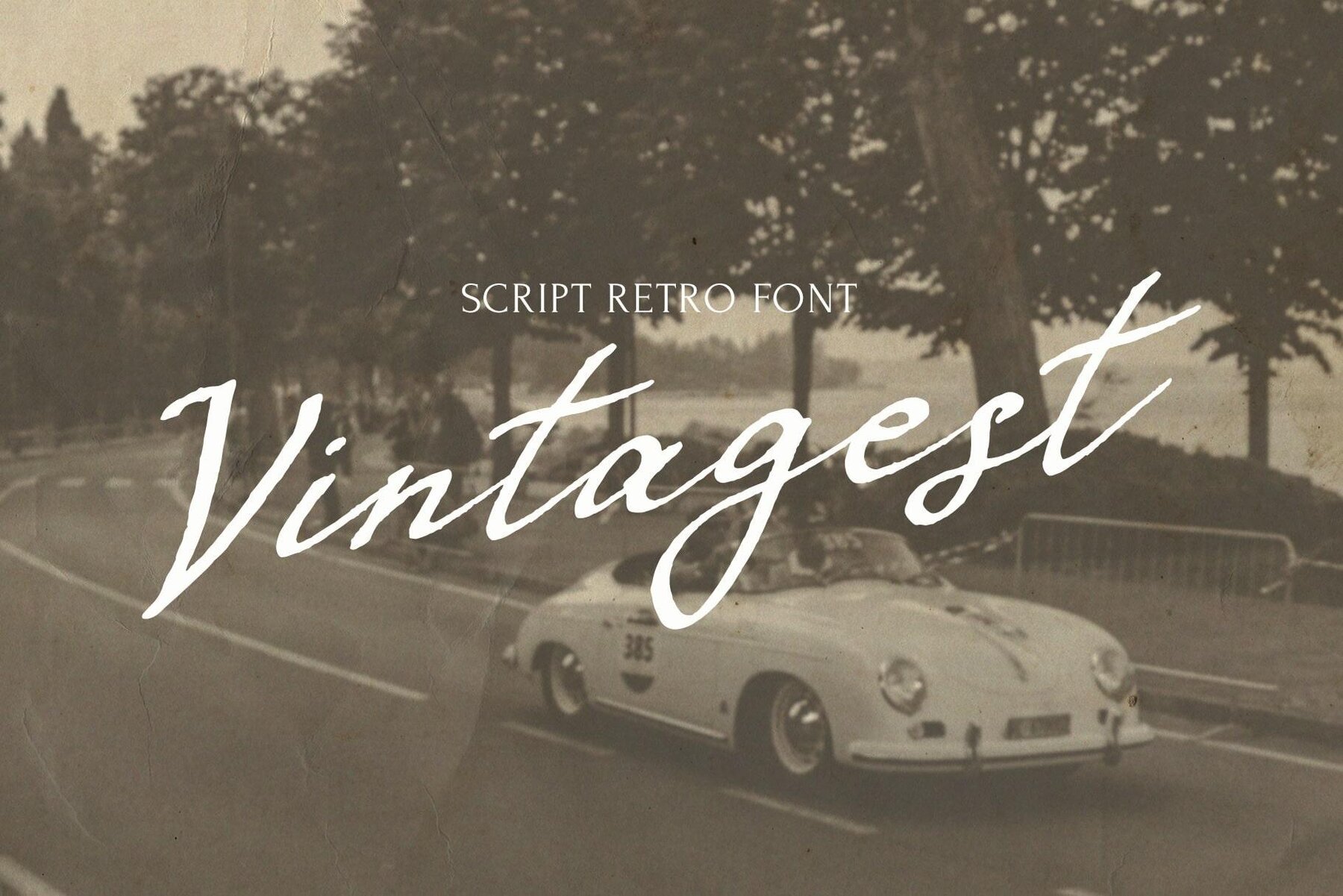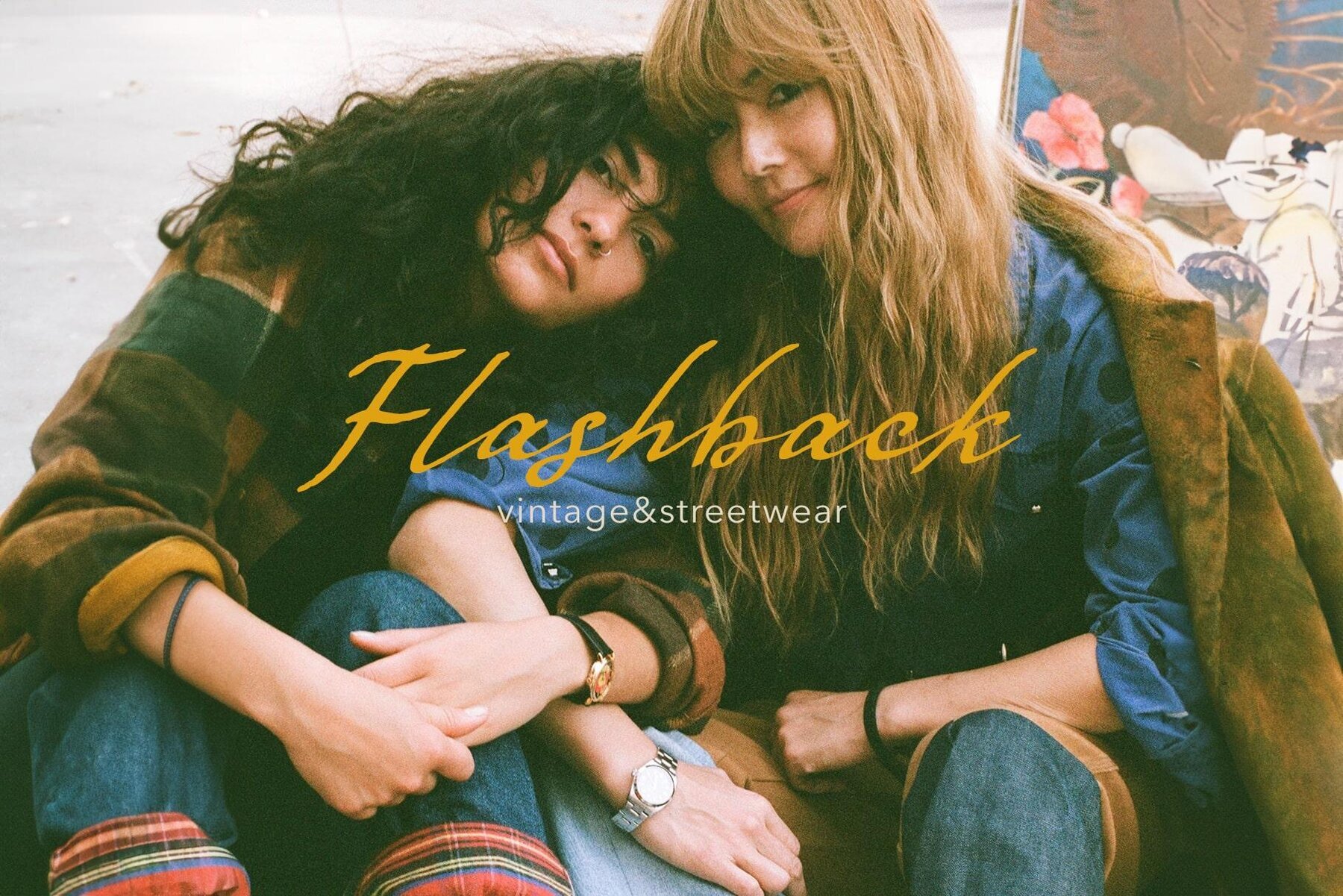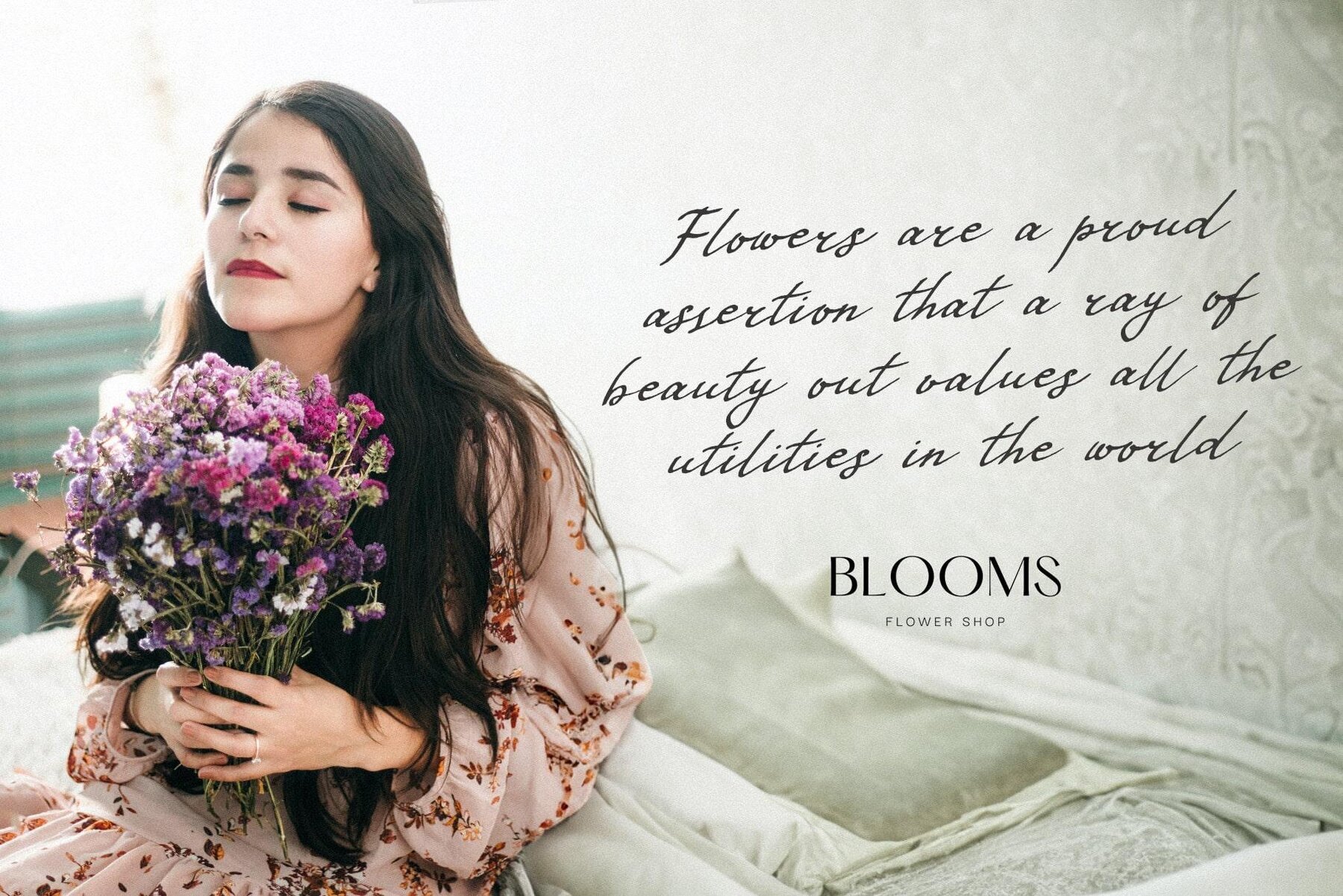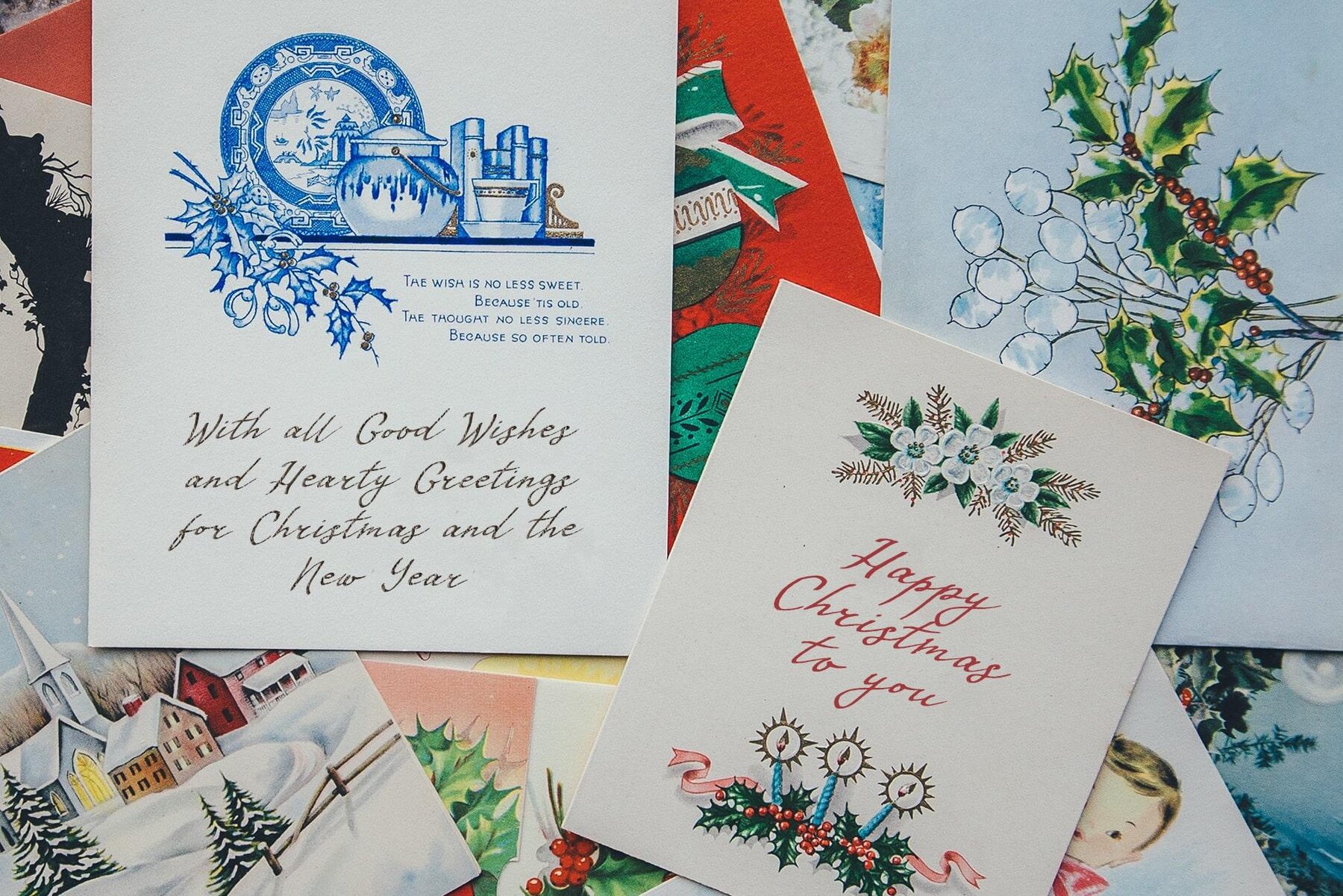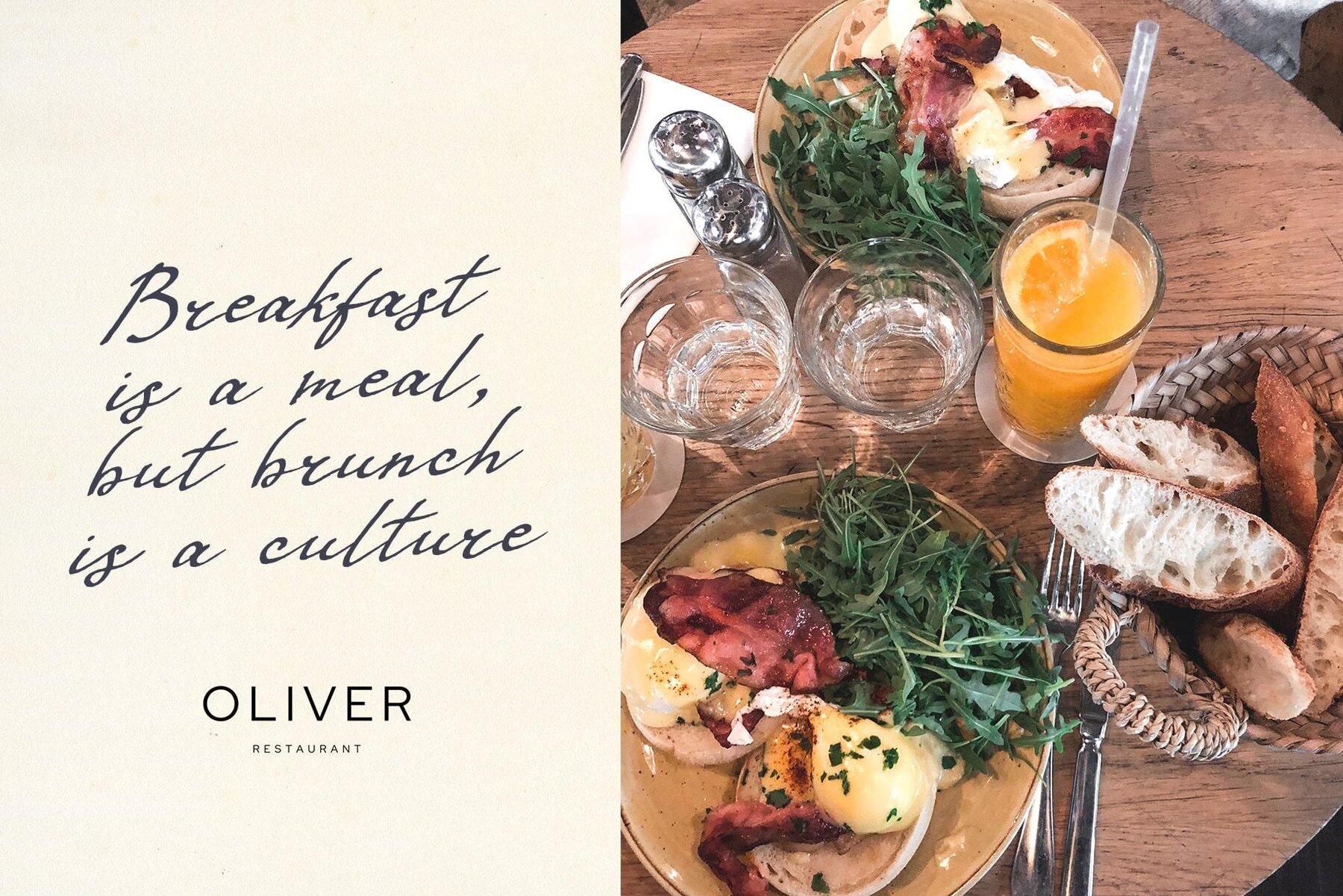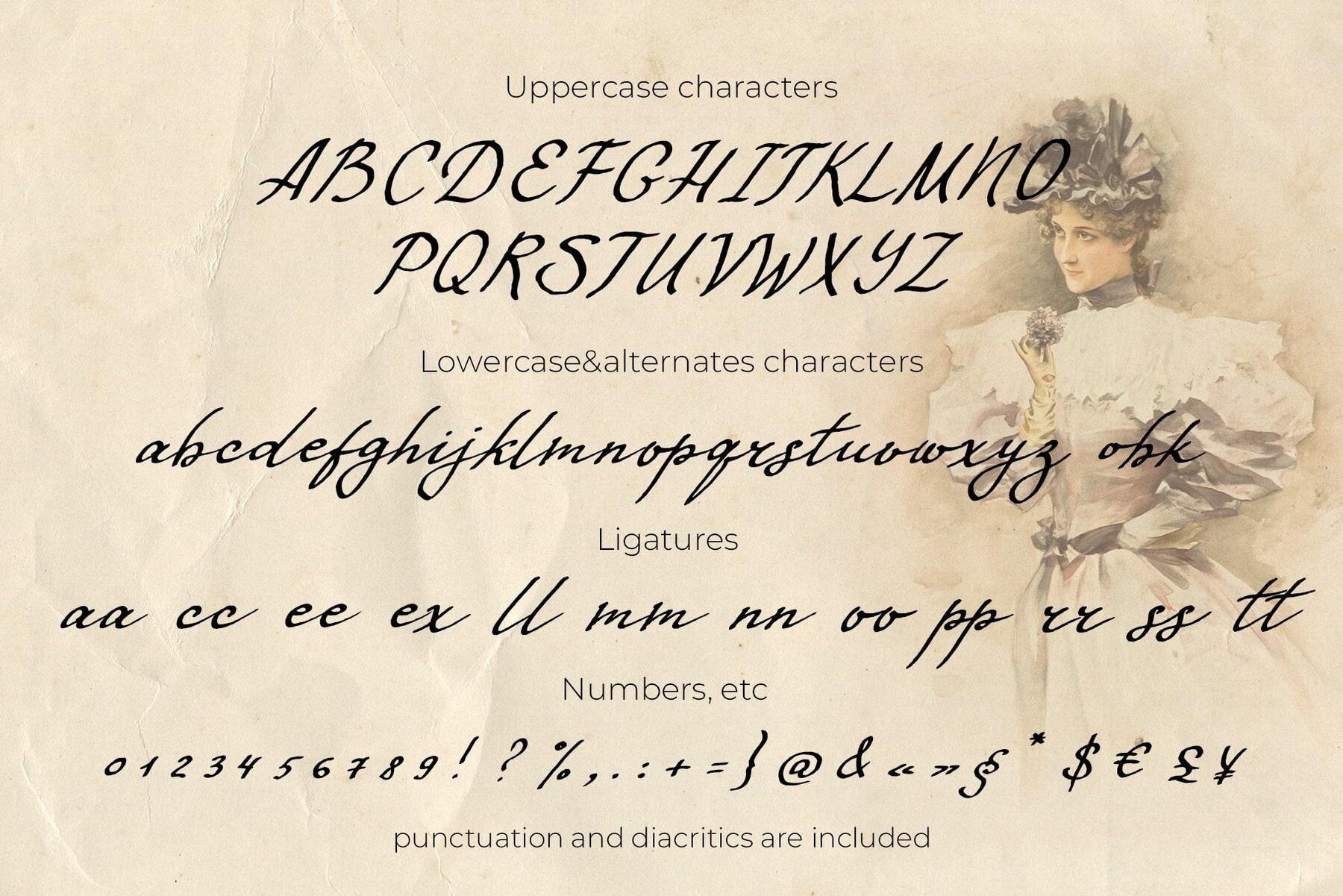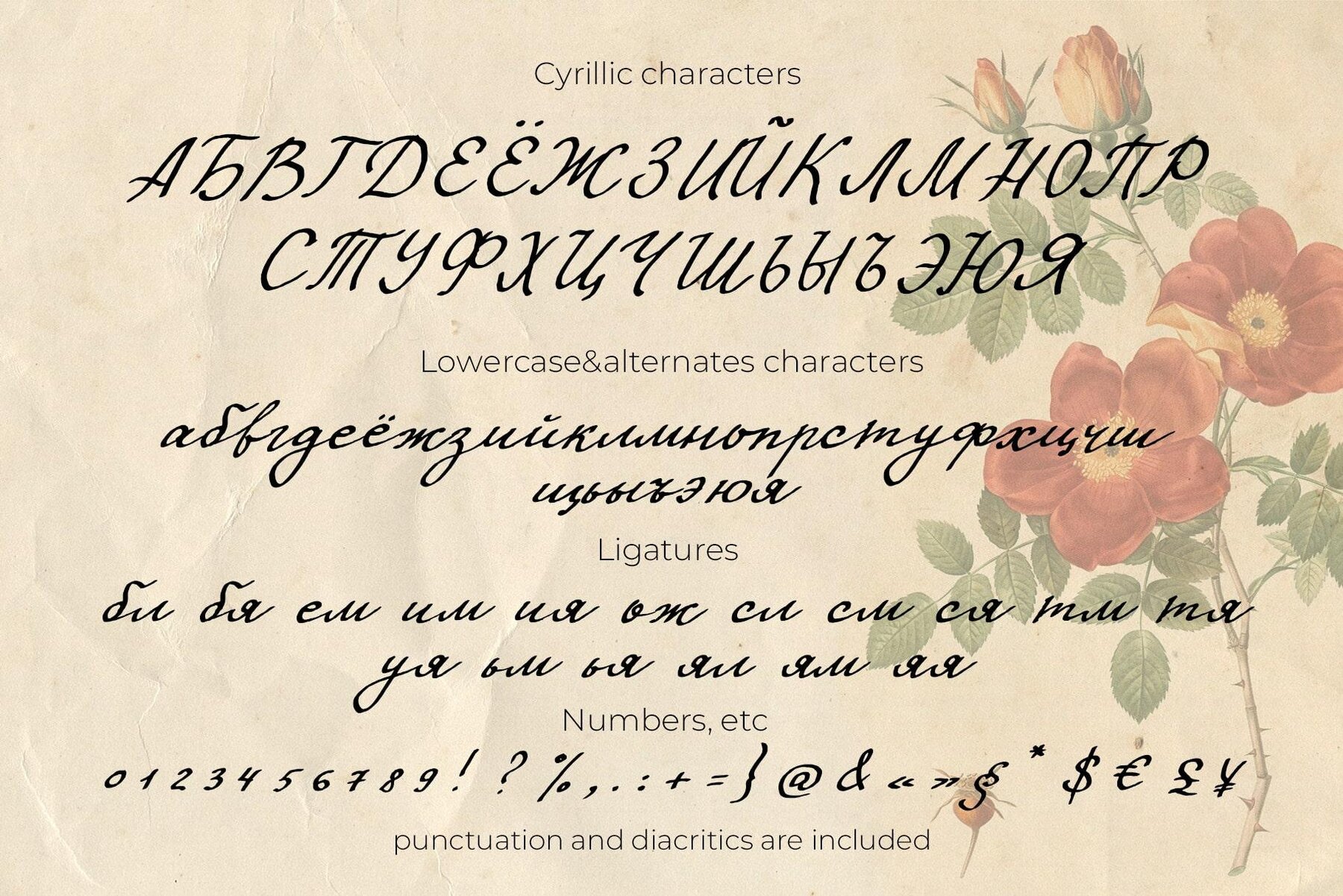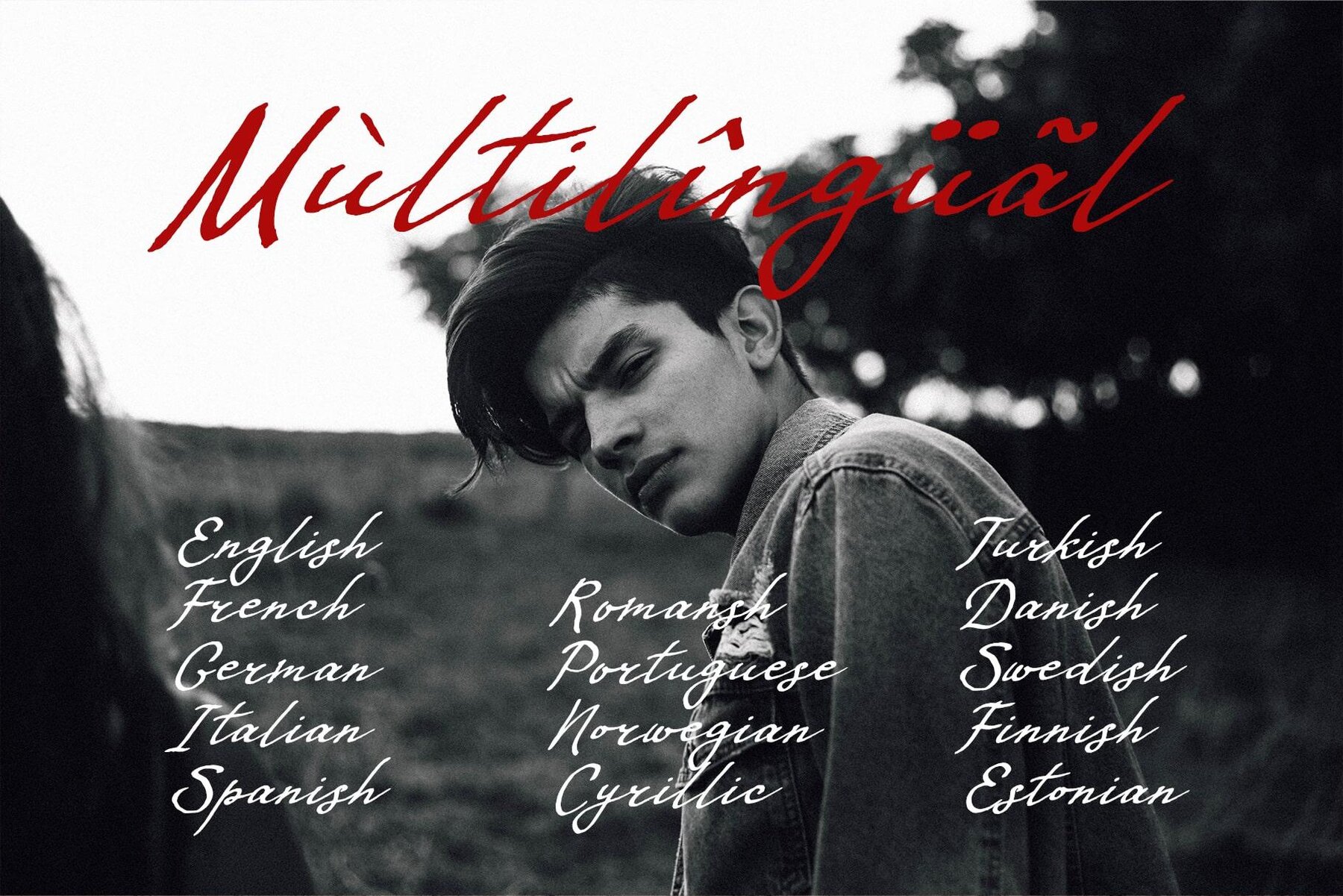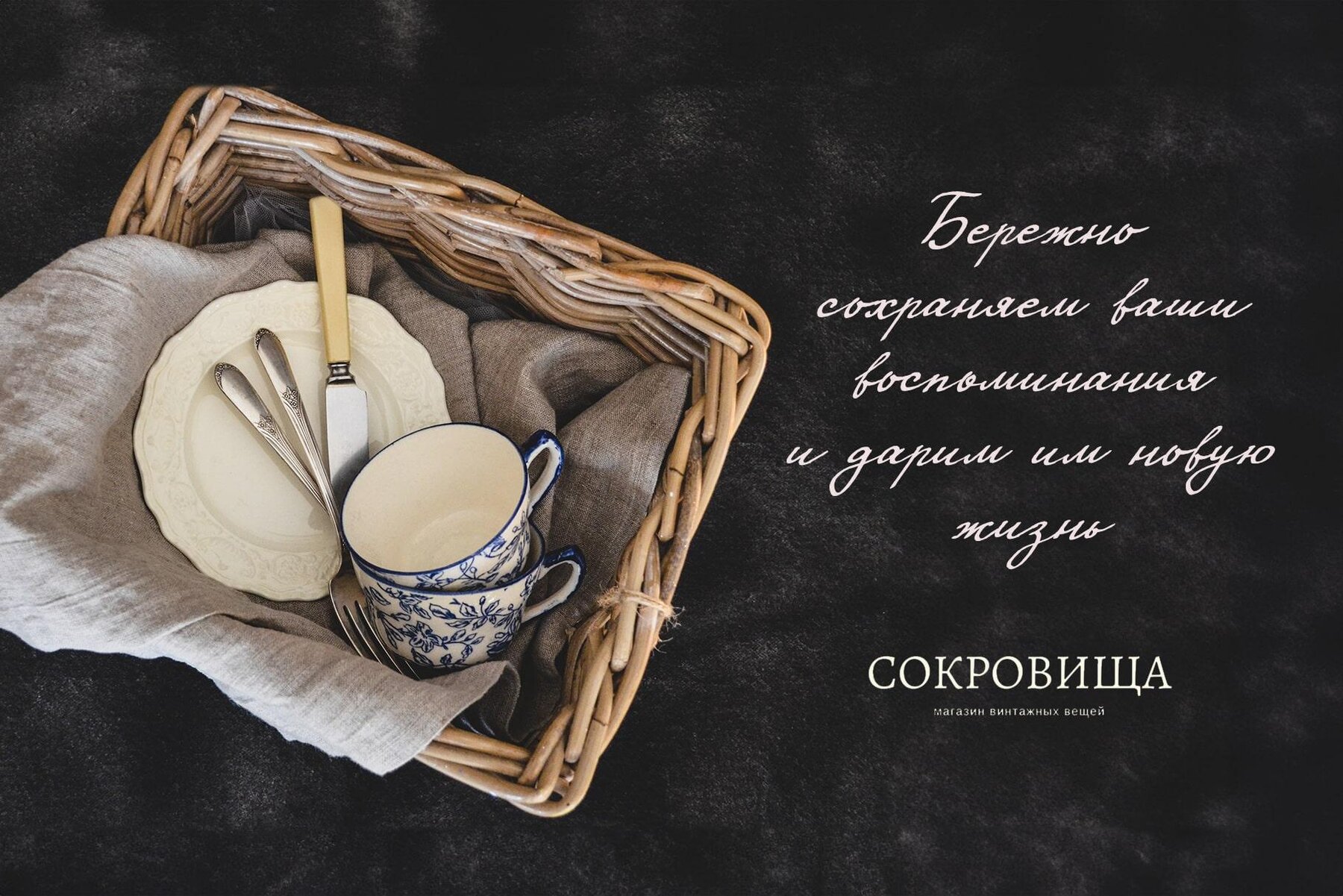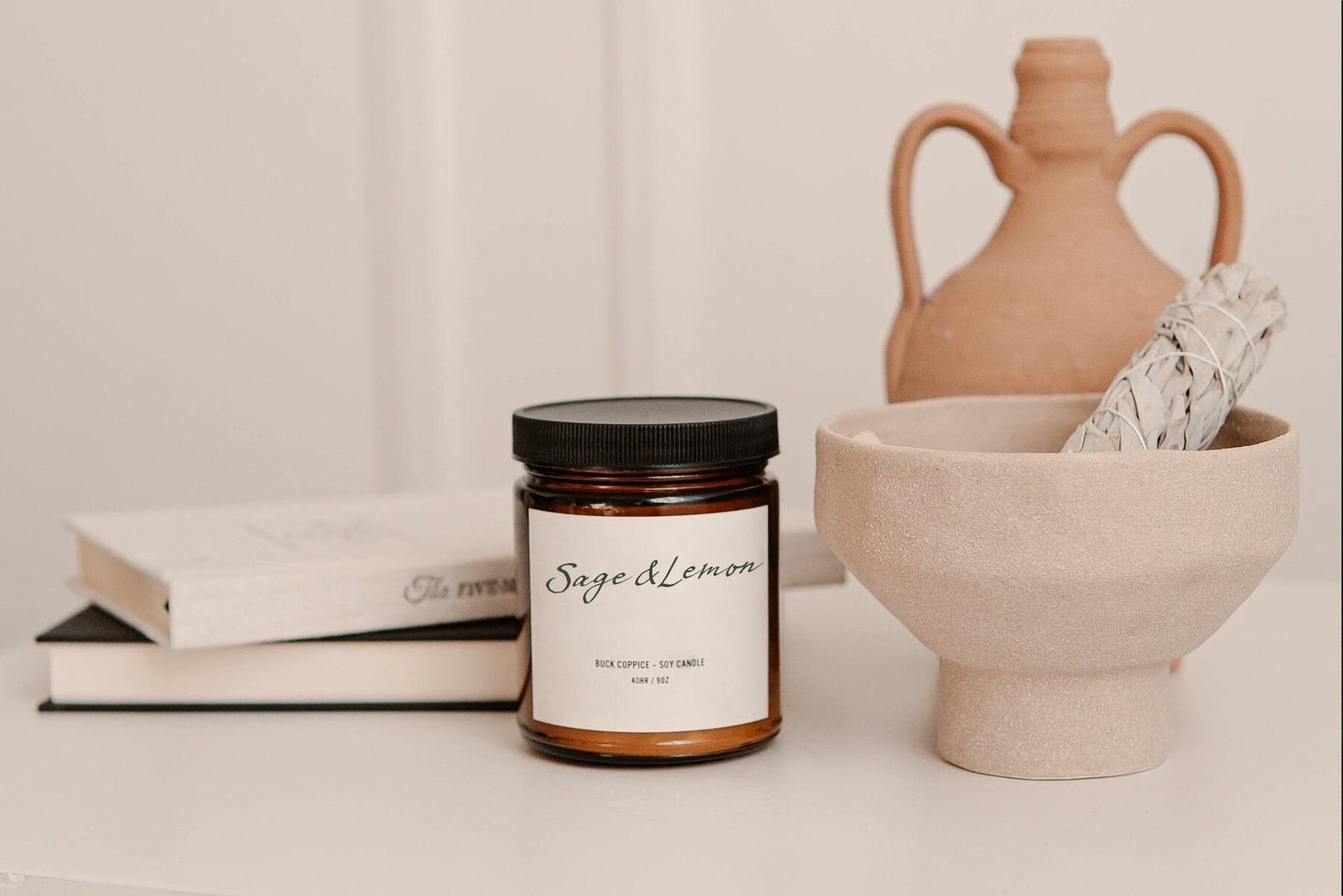
VINTAGEST Font
Vintagest
Step into nostalgia with Vintagest, a meticulously crafted handwritten font reminiscent of letters penned by past generations. Created with a flat pen and ink, this typeface exudes a charm that harks back to a bygone era. Ideal for projects that require a touch of vintage elegance, Vintagest is suitable for logos, packaging, advertising, product design, websites, and blogs. Features: Supported languages include English, French, German, Italian, Spanish, Portuguese, Danish, Norwegian, Swedish, Finnish, Estonian, Romansh, Turkish, and Cyrillic.Vintagest: A Handwritten Retro Typeface